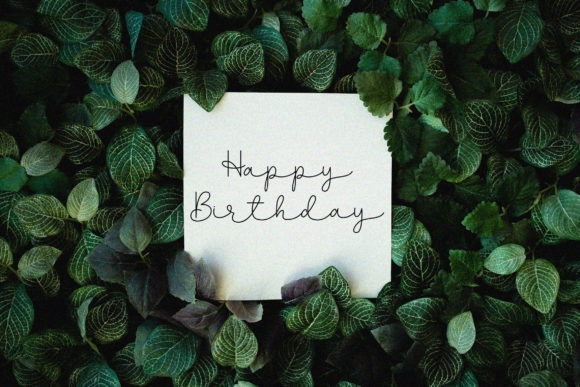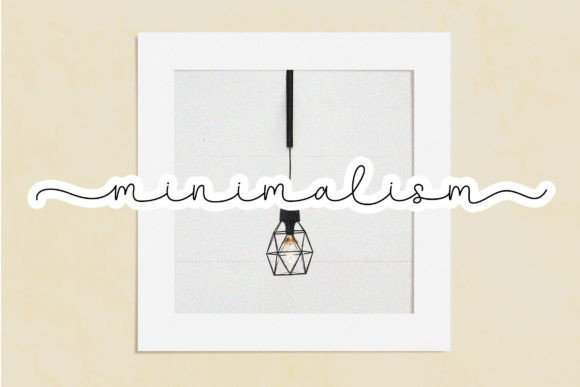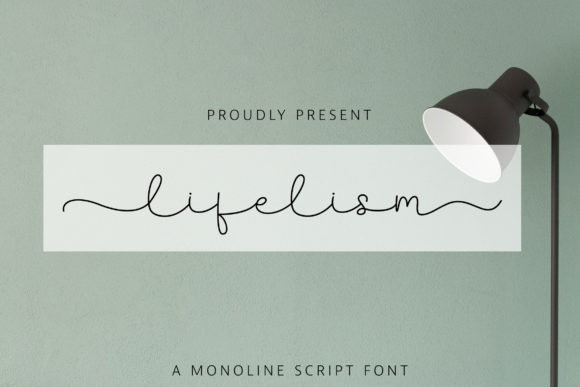
Lifelism Font
Lifelism Handwritten Font is a delicate and thin handwritten font. It has beautiful and well balanced characters and as a result, it matches a wide pool of designs. Add it to your most creative ideas and notice how it makes them come alive!